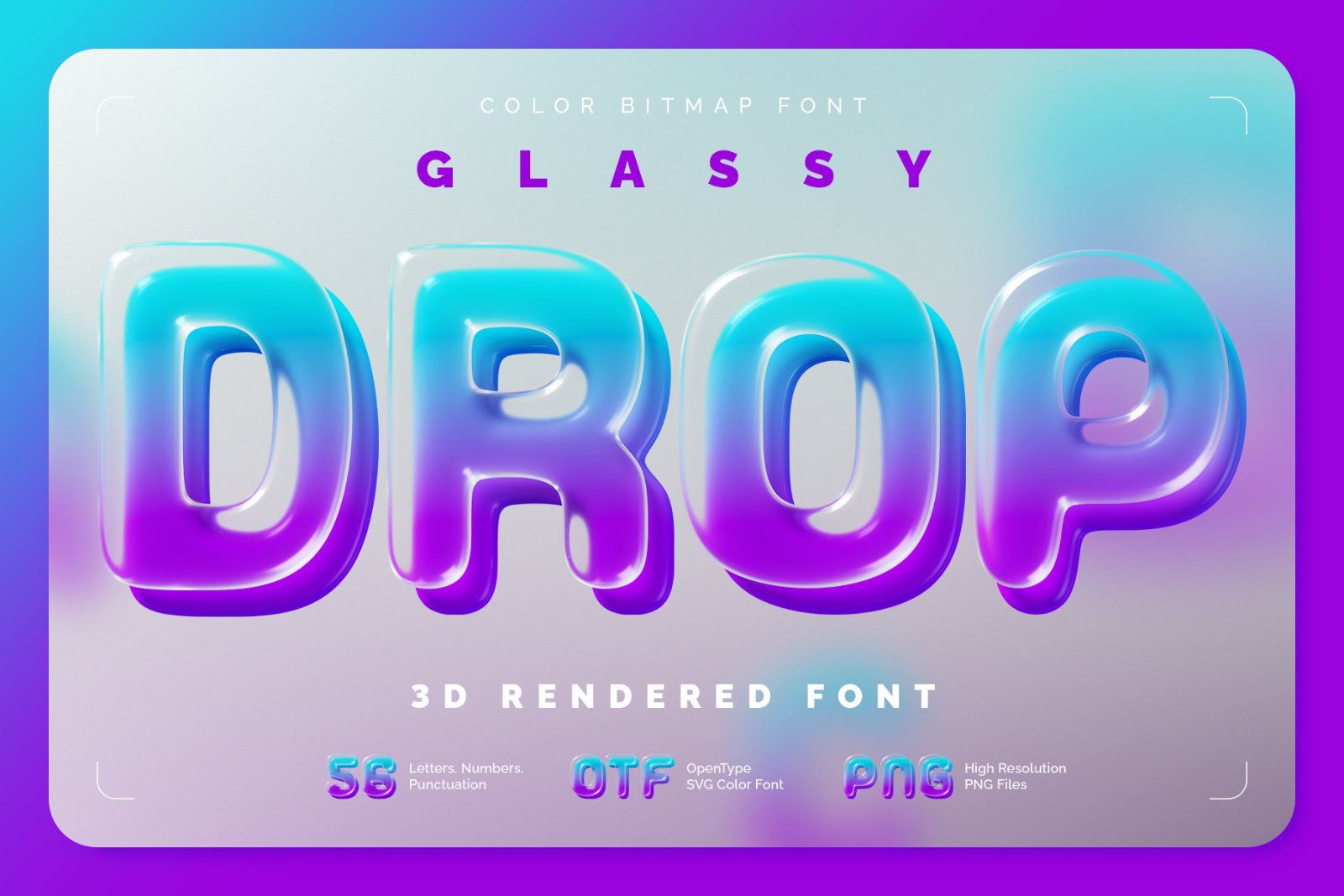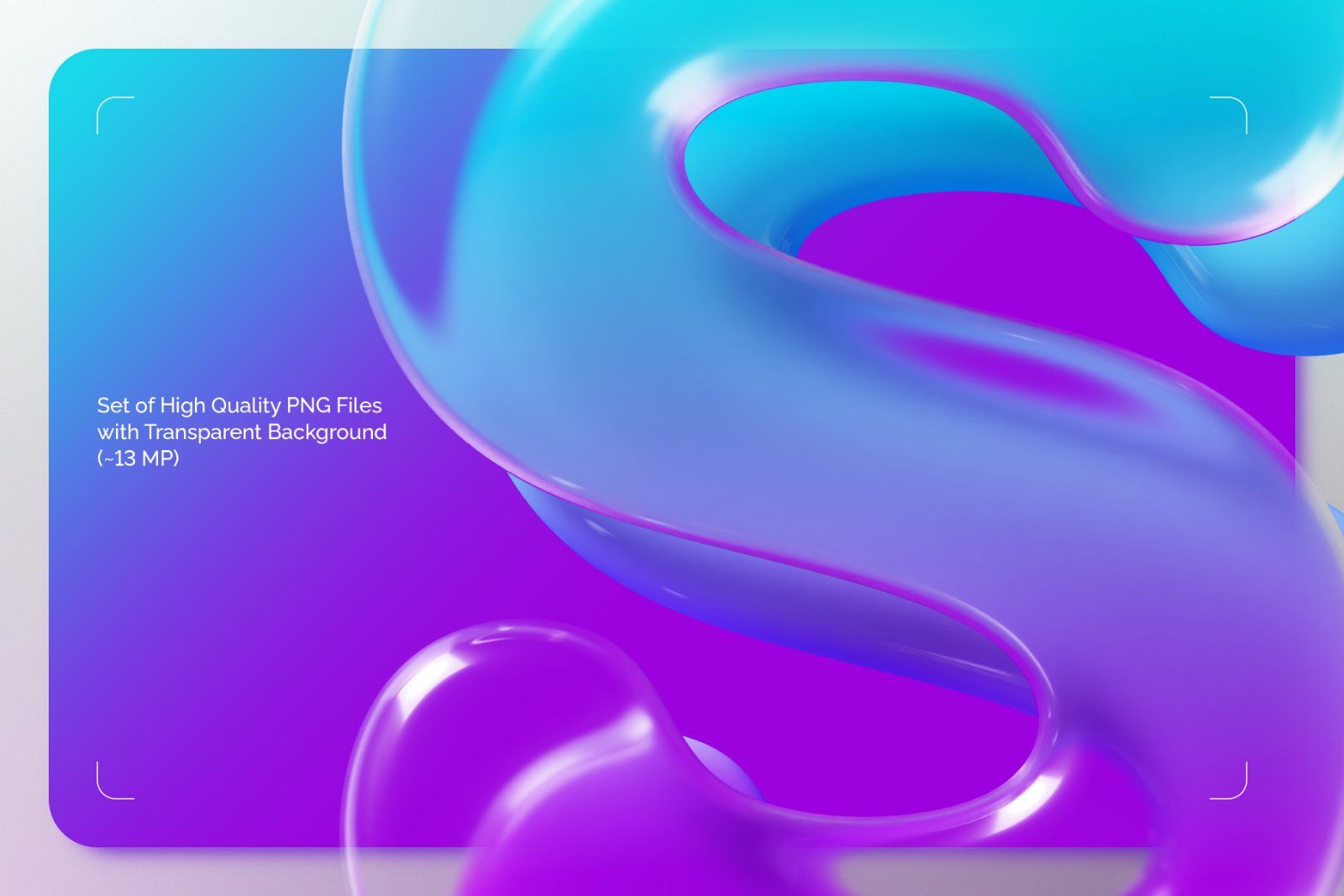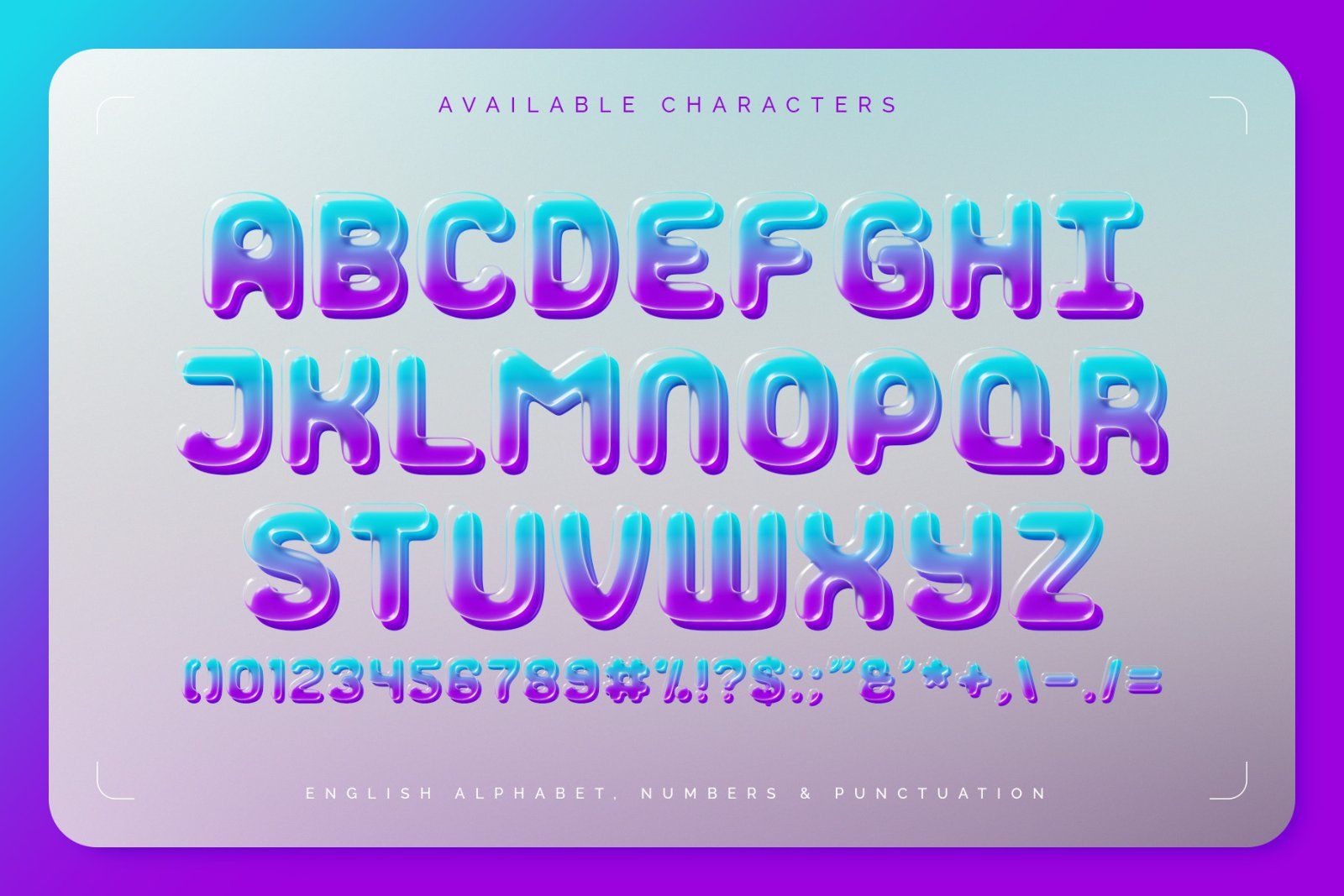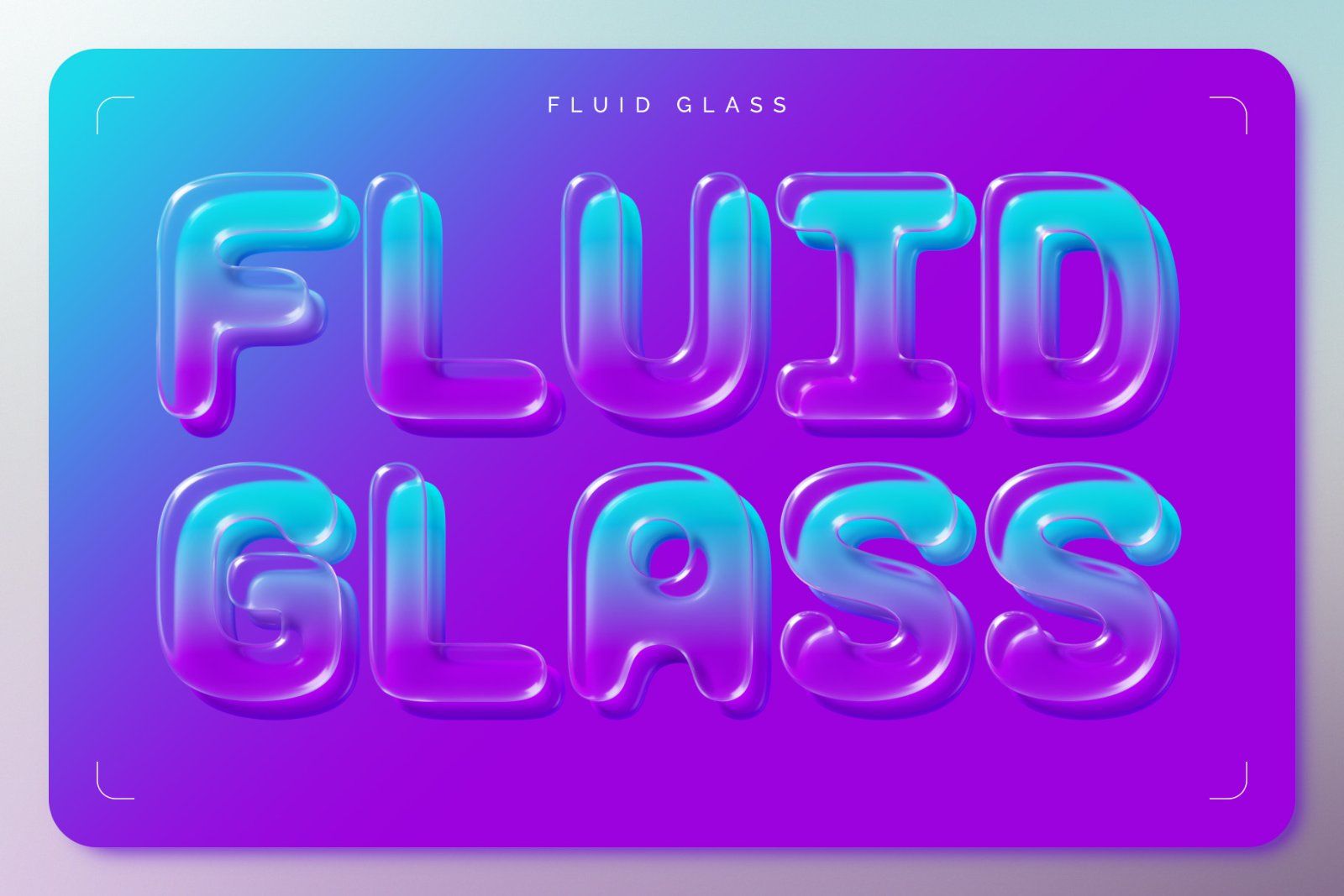
Introducing Glassy Drop, a modern and creative font set. This 3D typeface features abstract, rounded shapes with transparent glass letters set against a smooth, refractive gradient backdrop.
Glassy Drop is a color bitmap OpenType-SVG font, usable just like any standard OTF font. Additionally, the set includes high-resolution PNG files with transparent background (average resolution is 13 megapixels).
Consider that the font supports only the English language and basic punctuation. Be sure to review the included screenshot for a complete list of available characters.